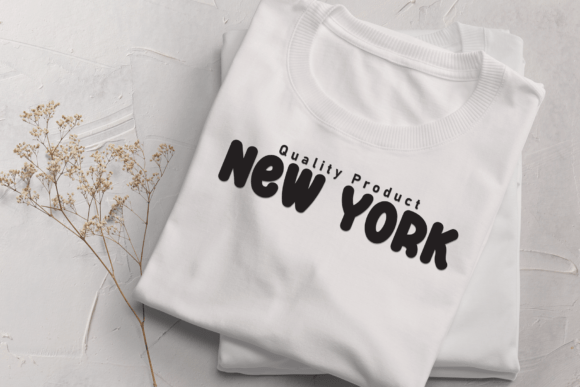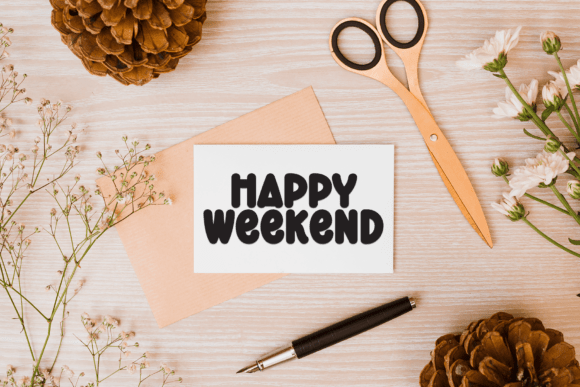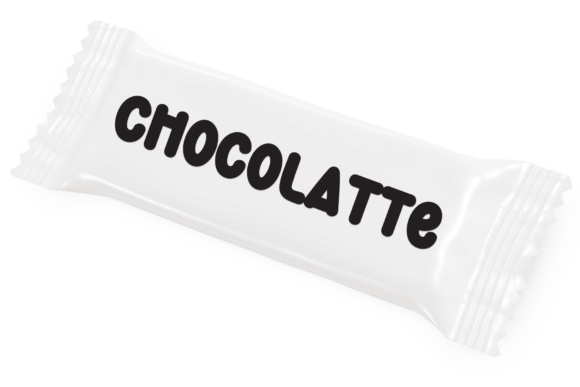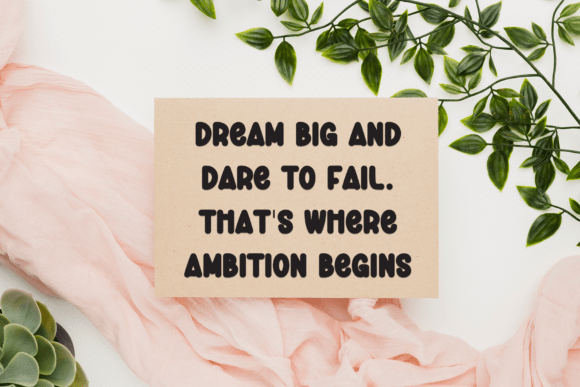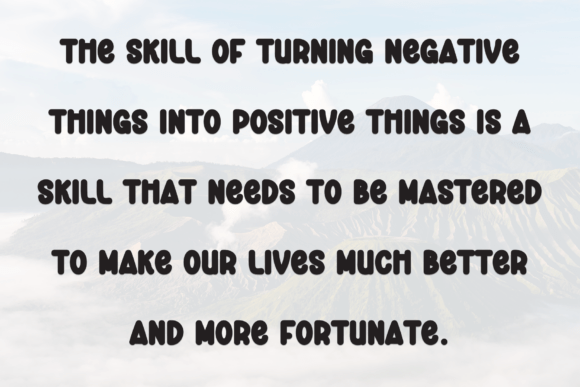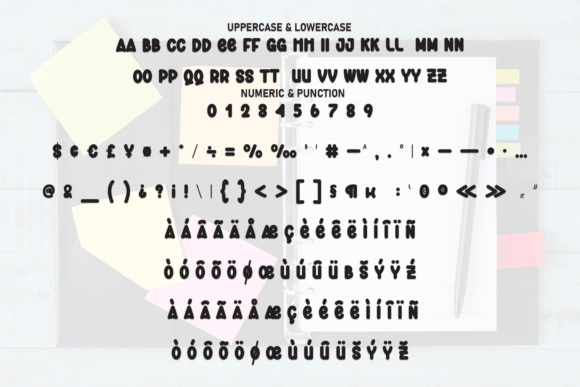
Introduction to Notes Chubby Font
Remember that moment when you finally nailed the design of your best friend’s birthday card? The mix of colors, the playful doodles, and the perfect font that captured the essence of their personality. That’s the magic of a well-chosen font, and today we’re excited to introduce you to the delightful Notes Chubby Font.
This charming handwritten display font is a design treasure that’s sure to elevate any creative project. Whether you’re working on a wedding invitation, a heartfelt card, or any other design that requires a dash of fun, Notes Chubby Font is the perfect companion. Its delightful appeal is not just limited to its adorable aesthetic; it also offers a high-quality, free download experience, complete with a transparent background, making it an invaluable design resource for designers.
As a designer, you understand the value of a well-crafted font in bringing your creative vision to life. With Notes Chubby Font, you’ll be able to infuse your designs with a burst of personality and fun, making it a valuable addition to your design toolkit.
Key Features of Notes Chubby Font
- High-quality font design ideal for creative projects and design resources.
- Unique, chubby design with rounded edges and smooth curves, adding a playful touch to any project.
- Perfect for use in logos, branding materials, social media graphics, and other creative projects requiring a distinctive font.
Honest Review: Notes Chubby Font
As a designer, I’m always on the lookout for high-quality design resources to enhance my creative projects. Recently, I came across the Notes Chubby Font, and I must say, it’s been a game-changer.
One of the things that works well about the Notes Chubby Font is its versatility. The font is available for a free download, making it an excellent addition to any design project. The transparent background allows for seamless integration with various design elements, giving your project a professional touch.
However, there are a few limitations to consider. The font may not be suitable for formal or corporate designs, as it has a more playful and casual vibe. Additionally, the font may not be as customizable as some other design resources.
- ⚠️ May not be suitable for formal or corporate designs
- ⚠️ Limited customization options
Overall, I’m impressed with the Notes Chubby Font. It’s a great addition to any designer’s toolkit, and I highly recommend it for creative projects that require a playful and modern touch.
Tips for Getting the Most Out of Notes Chubby Font
Use the Notes Chubby Font in combination with a transparent background to create a high-quality design. Experiment with different font sizes and styles to add visual interest to your design.
Common Use Cases for Notes Chubby Font
The Notes Chubby Font is a versatile font that can be used in a variety of creative projects, including:
- Designing invitations and event materials
- Creating social media graphics and ads
- Developing branding and marketing materials